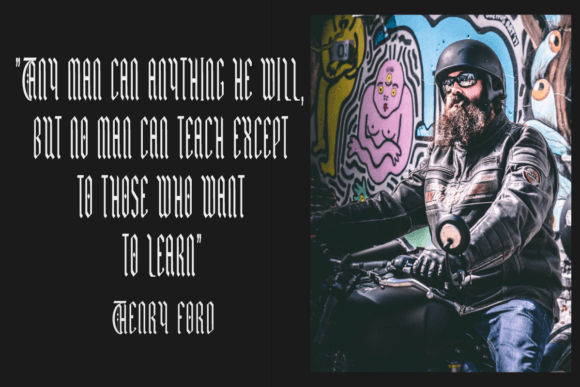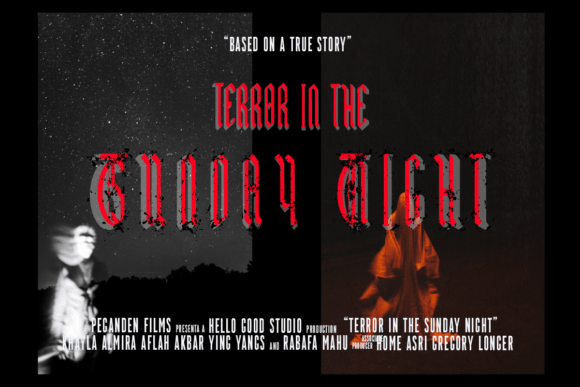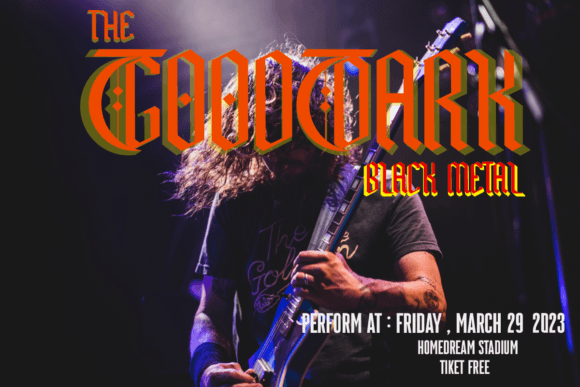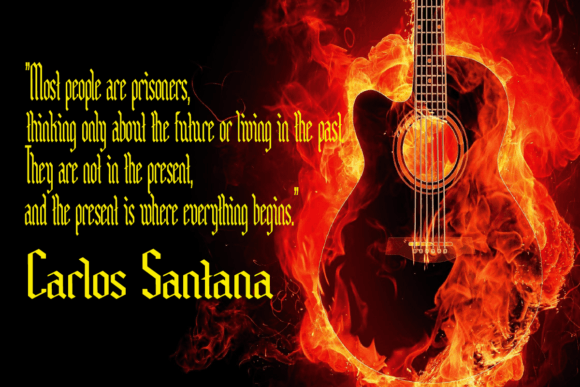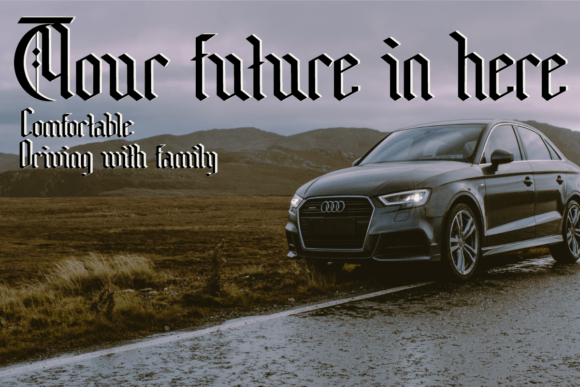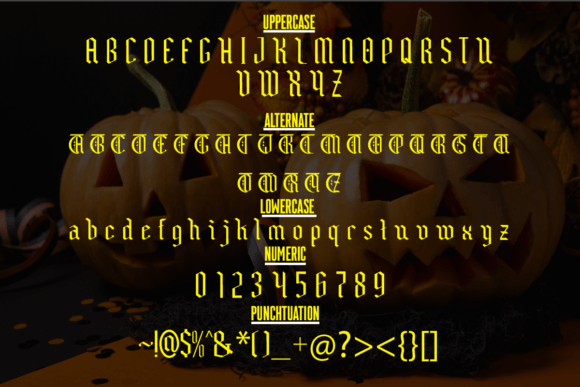
Introduction to Kreuzlingen Font
Kreuzlingen is a simple and authentic blackletter font.
Perfect for creating eye-catching logotypes for metal bands, headings, titles, and displays This font is ideal for metal or dark digital craft projects and will surely leave a lasting impression on your audience.